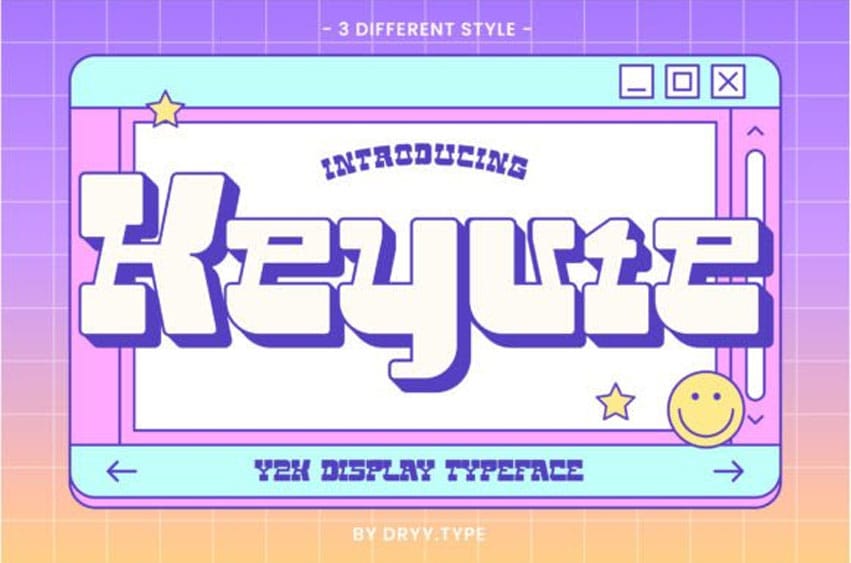
Keyute Font is a bold and futuristic display font inspired by Y2K aesthetics. Its geometric letterforms feature sharp edges and angular shapes, evoking a sense of energy and dynamism.
The font is perfect for creating eye-catching headlines, posters, and logos that need to make a bold statement. Keyute’s unique style is sure to capture attention and stand out from the crowd.